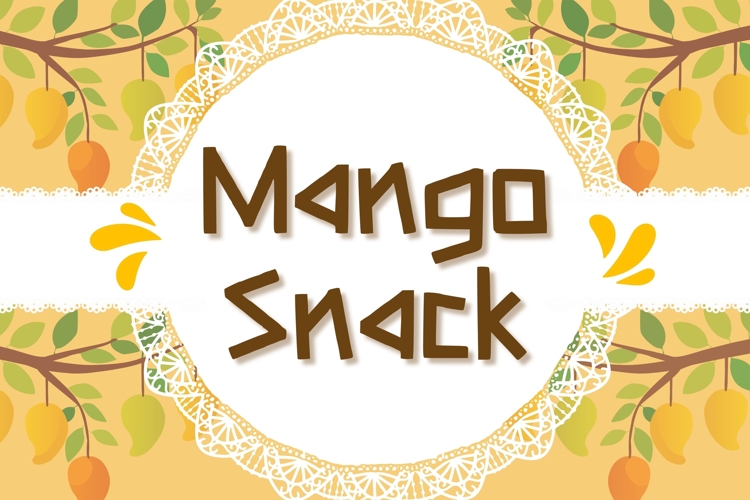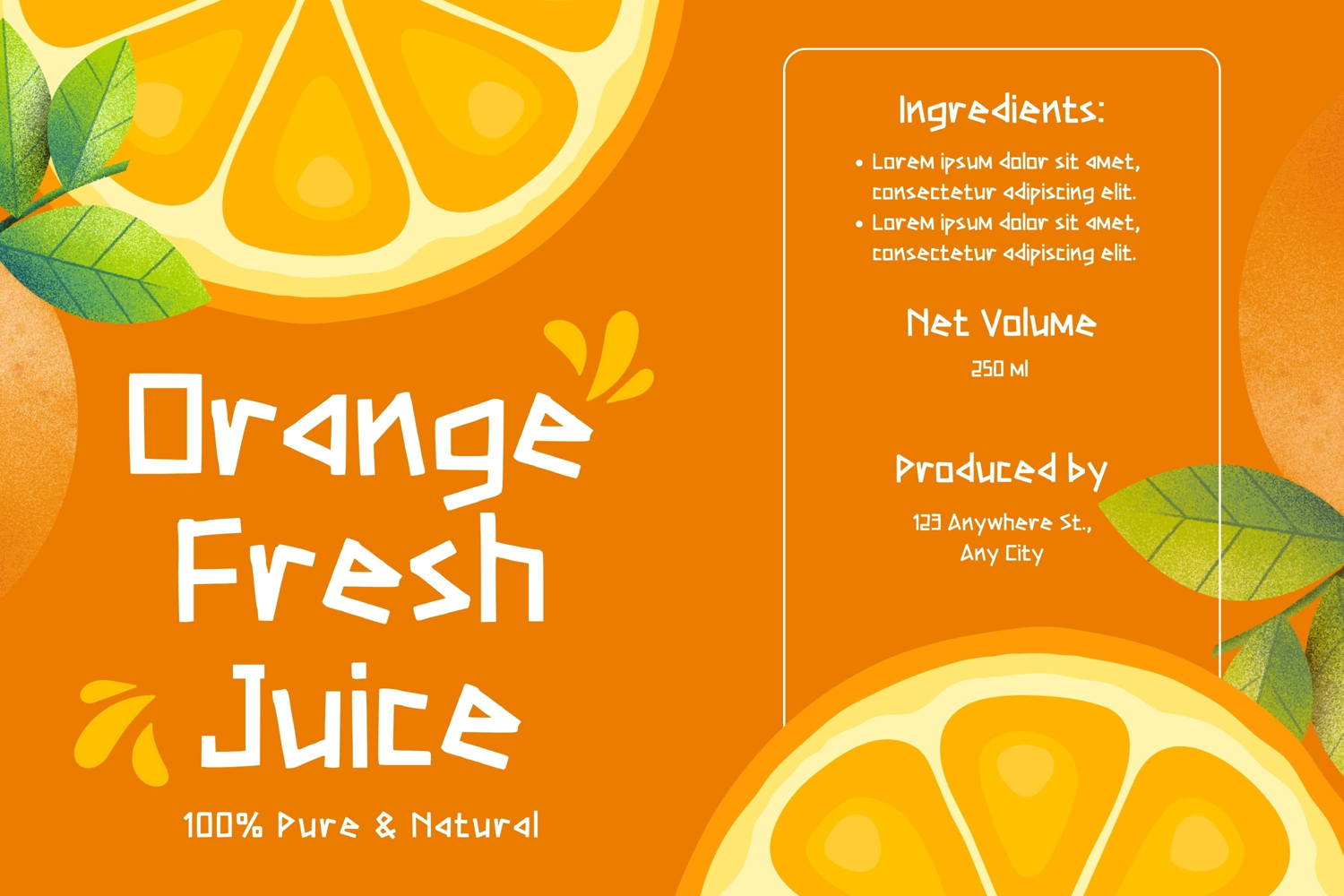
Introducing our distinct Mango Snack Font, specifically curated for those working with food advertising and various design styles. Unveil a world of typography that adds irresistible appeal to your ingredients lists or culinary promotions. This font set showcases not just one, but a variety of design styles, each uniquely shaped to enhance your creative endeavors. Enhance your textual aesthetics with these razor-sharp and uniquely contoured fonts, making your design project stand out in the crowd.